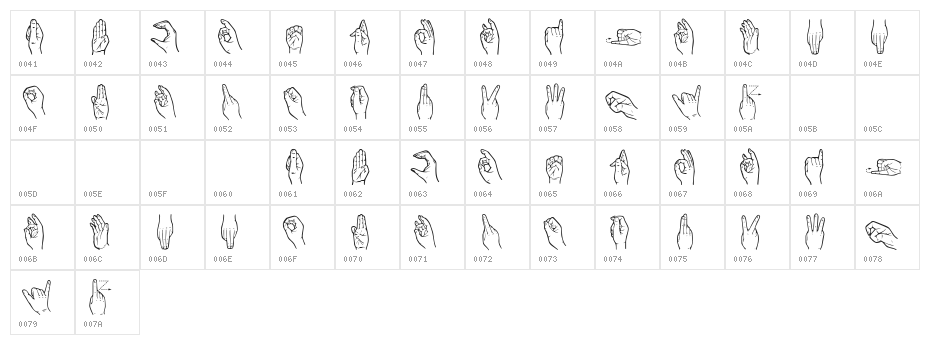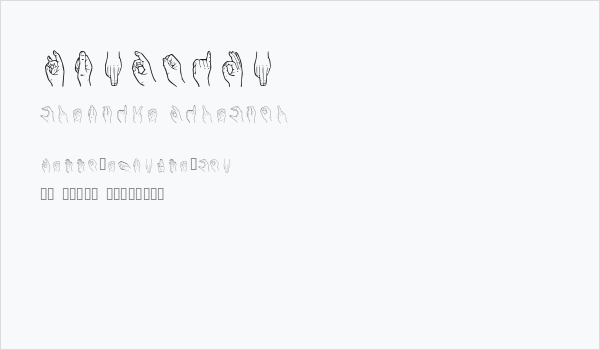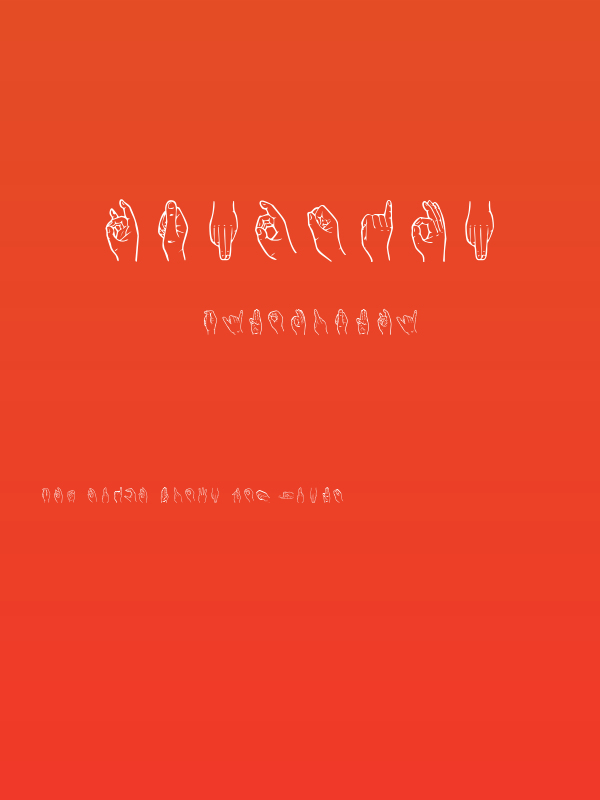
HandSign Font
HandSign Description
A decorative font featuring hand-drawn illustrations of hands forming letters and numbers in sign language, with each character represented by a unique hand gesture. The style is outlined and sketch-like, providing a playful and educational visual effect.
| Overall Style | Decorative, Playful, Educational |
| Use Case | Posters, Educational content, Logos, Display titles |
| Proposed Projects | Educational materials, posters, children's books, accessibility awareness campaigns, creative branding. |